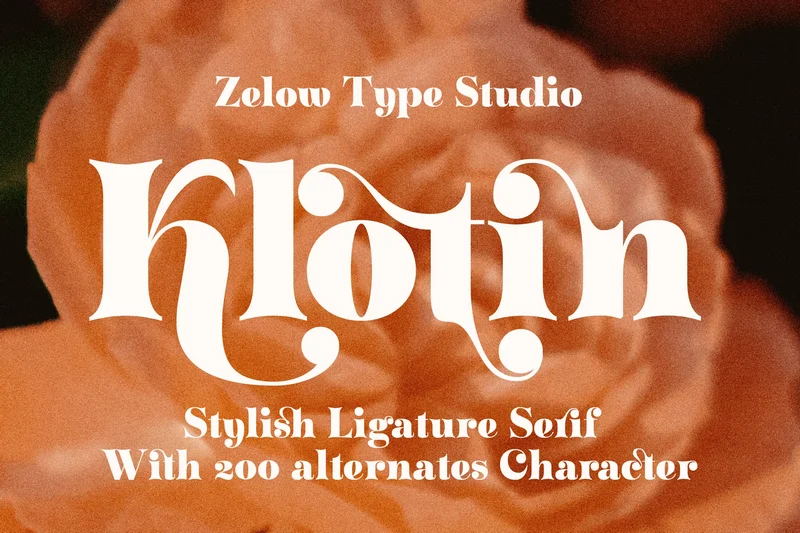
Klotin – Stylish Ligature Serif
ZT Klotin is a serif display font characterized by a strong, classic vibe, with straps, special alternate glyphs, and soft curves. Perfect for branding, weddings, social media, product design, stationery, and advertising. ZT Klotin is flexible enough to add these classic elements to almost any project requiring a special classy touch.
ZT Klotin features over 178 unique ligatures and alternates. Crafted to be soft and interwoven, it creates a stunning display of subtle hypnotic curves, making it the perfect choice for impactful editorial layouts and bold creations.
FEATURES
644 Glyphs
Uppercase & lowercase letters, numbers
Old-style figures
40 Discretionary & Standard Ligatures
200 Alternates (Uppercase & Lowercase)
Symbols & punctuation